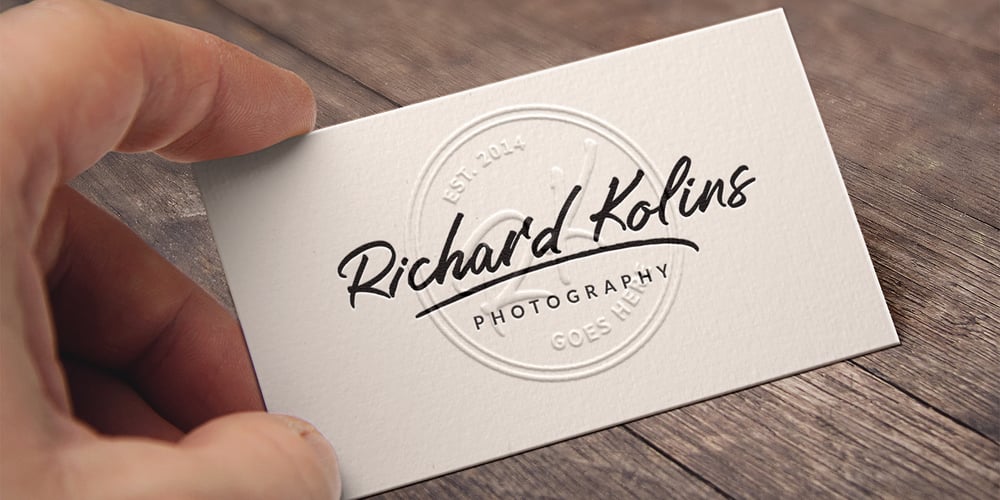
Ringtown Font Family was designed by Fajar Gunawan and published by Fargun Studio. Ringtown contains 3 styles and family package options. Ringtown is handwritten font with a signature style. perfect for branding projects, homeware designs, product packaging or simply as a stylish text overlay to any background image. Ringtown has an entire 2 alternate font set and marker style font. This is accessible simply by their own separate font file – just install this as normal and select Ringtown Alt 1, Ringtown Alt 2, Ringtown Marker and Ringtown Swash in your text-tool Fonts are provided in .otf formats Ringtown incudes 6 Font files: Ringtown — A handwritten script font containing upper & lowercase characters, numerals and a large range of punctuation. Ringtown Alt 1– the second version of Ringtown, with a completely new set of both lower and uppercase characters. Ringtown Alt 2– the thirth version of Ringtown, with a completely new set of both lower and uppercase characters. Ringtown Swash — A set of 36 hand-drawn swashes, with cool touch to underline you’re Ringtown text. Need help? If you need help or advice, please contact me by e-mail “fargunstudio@gmail.com” Thank you for your purchase!